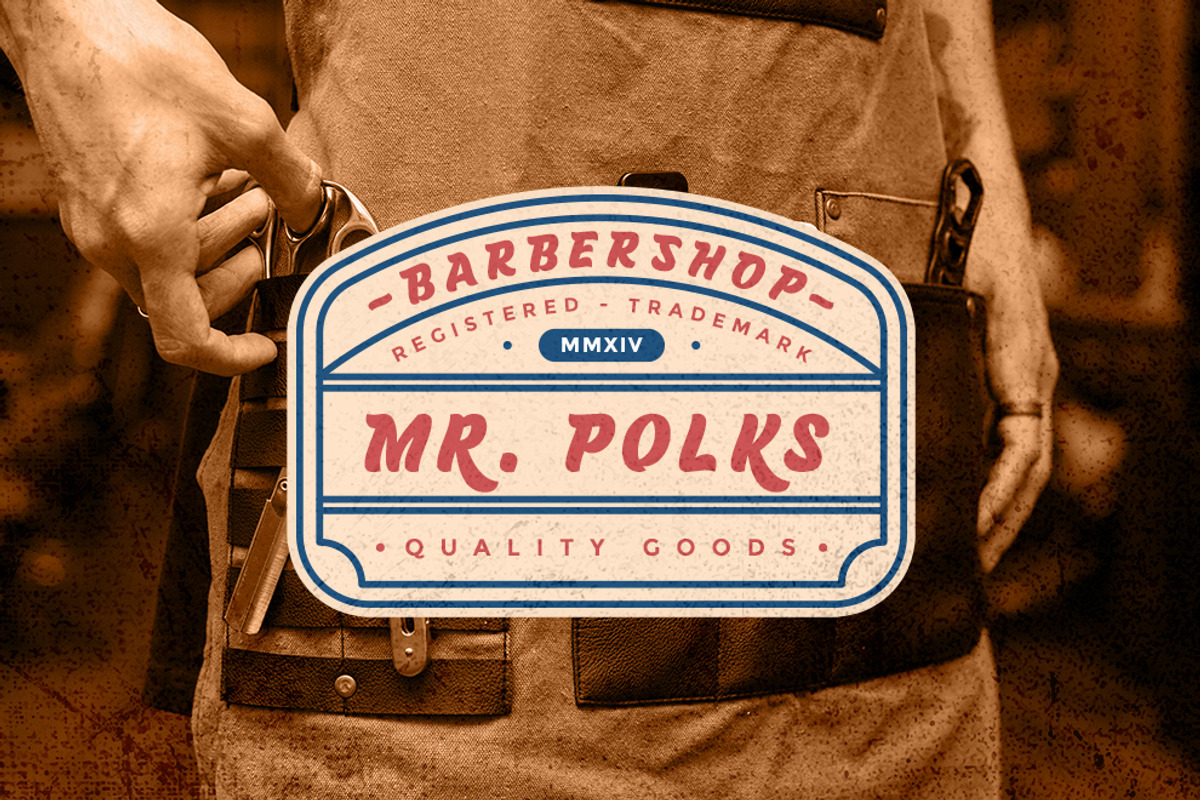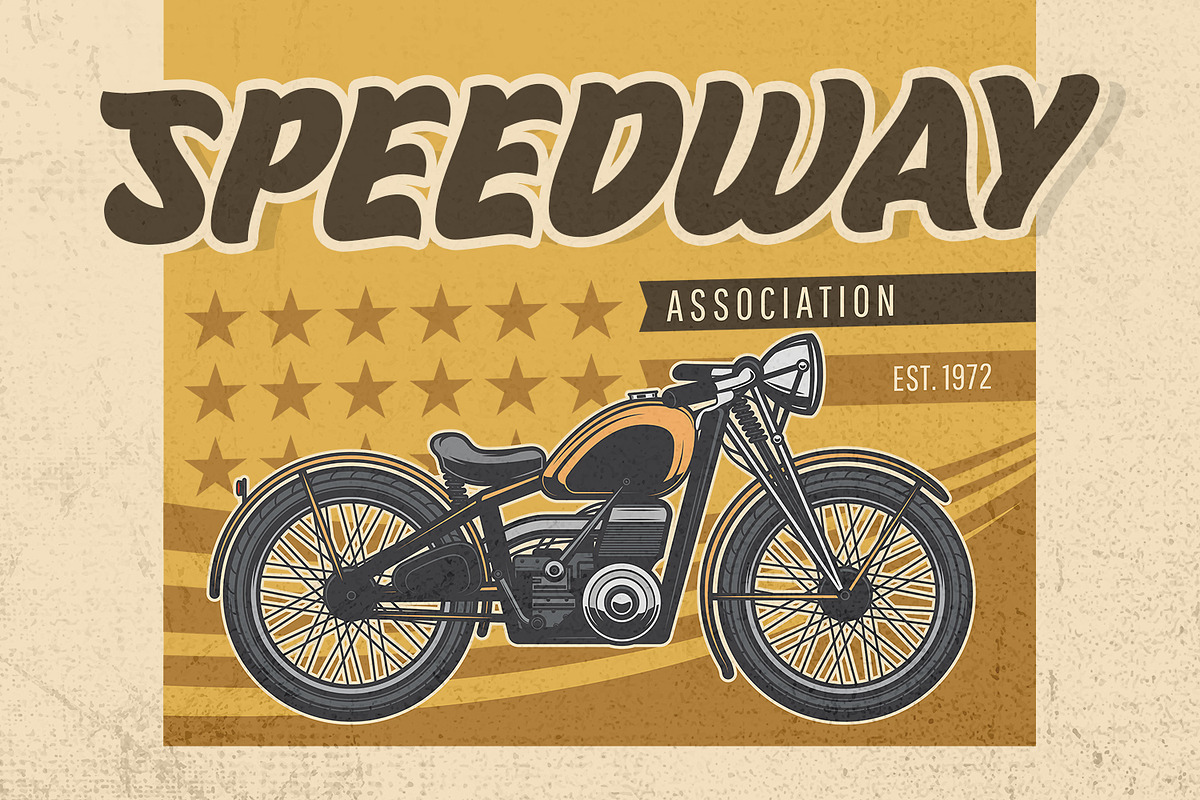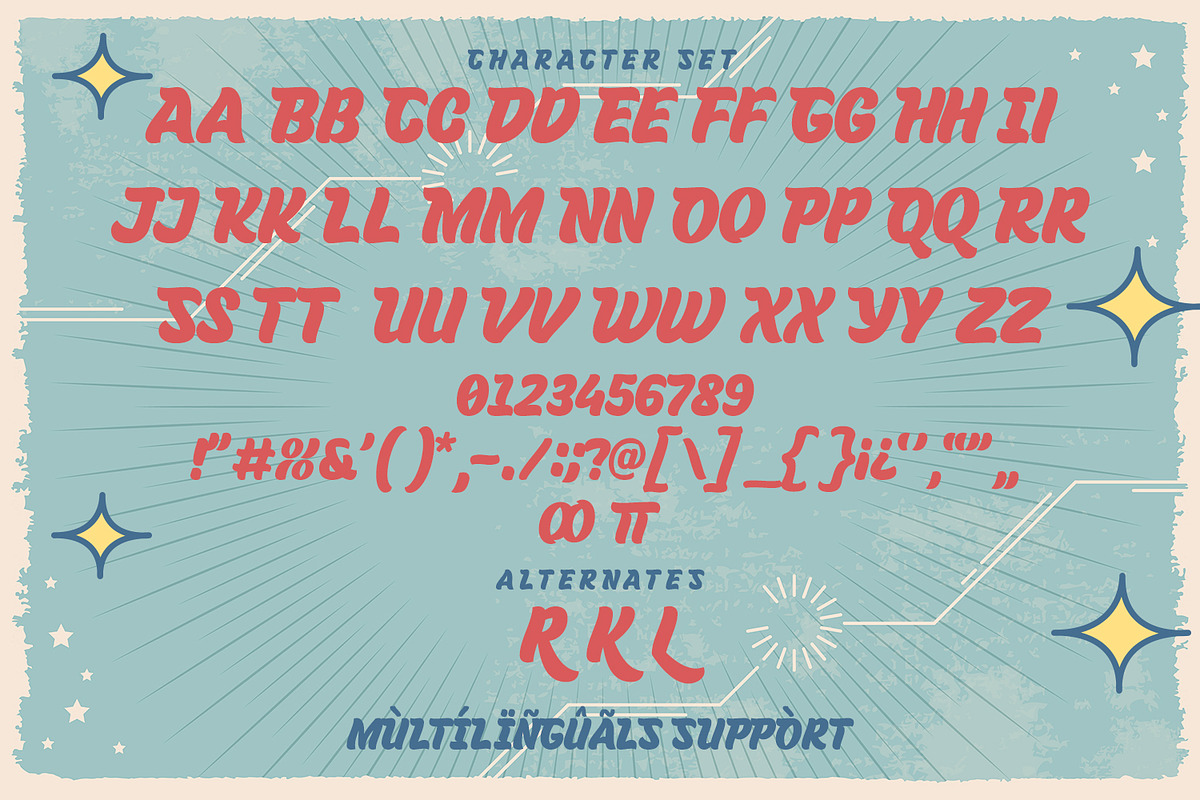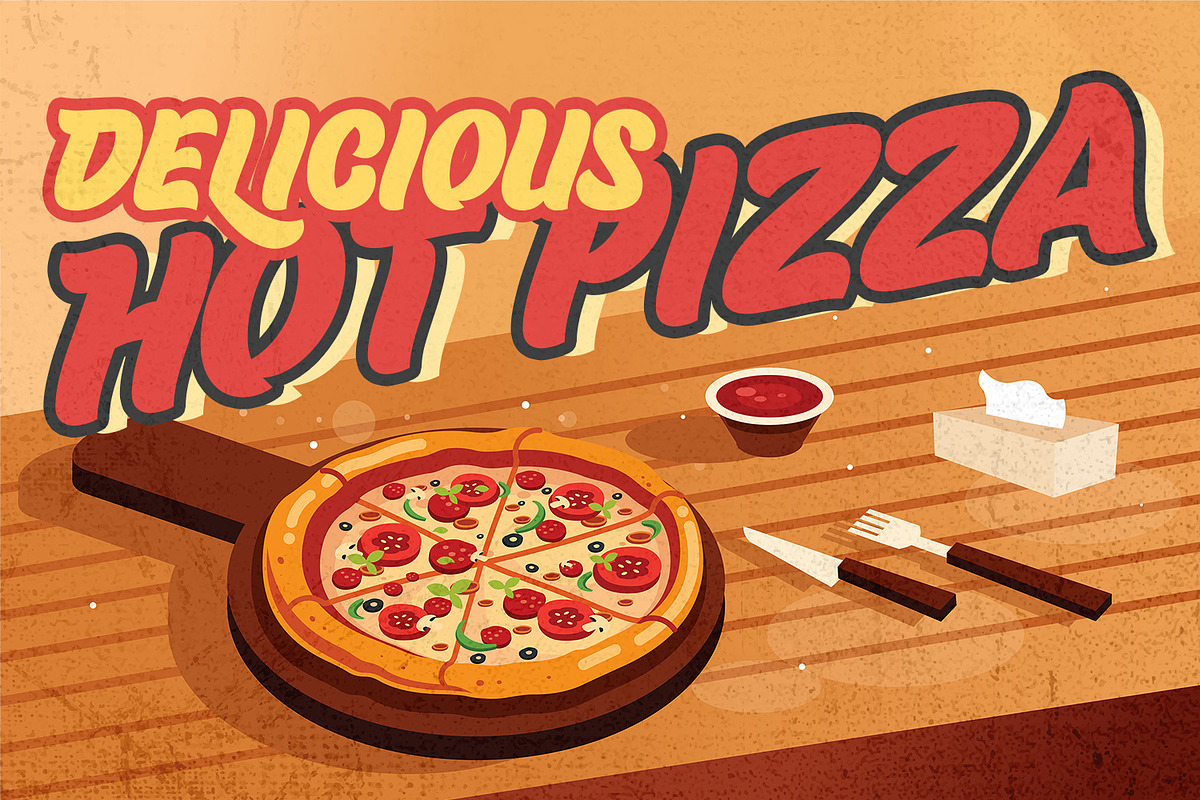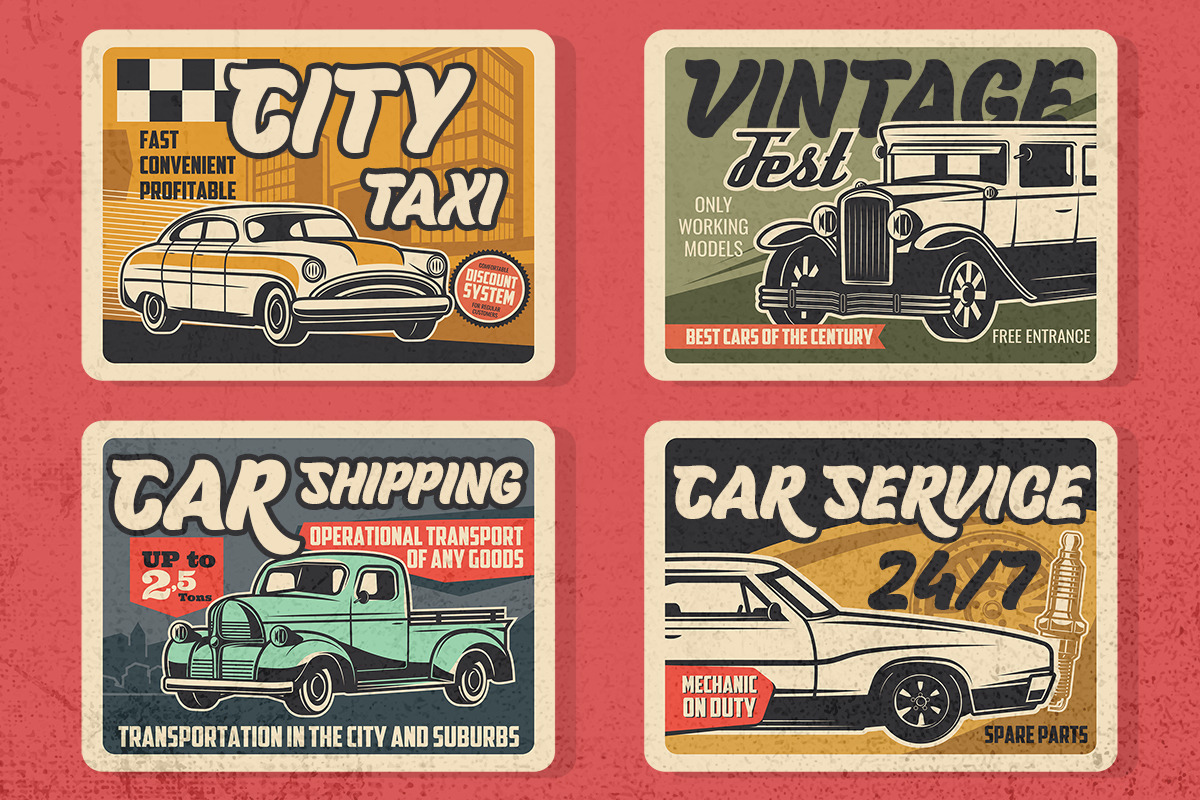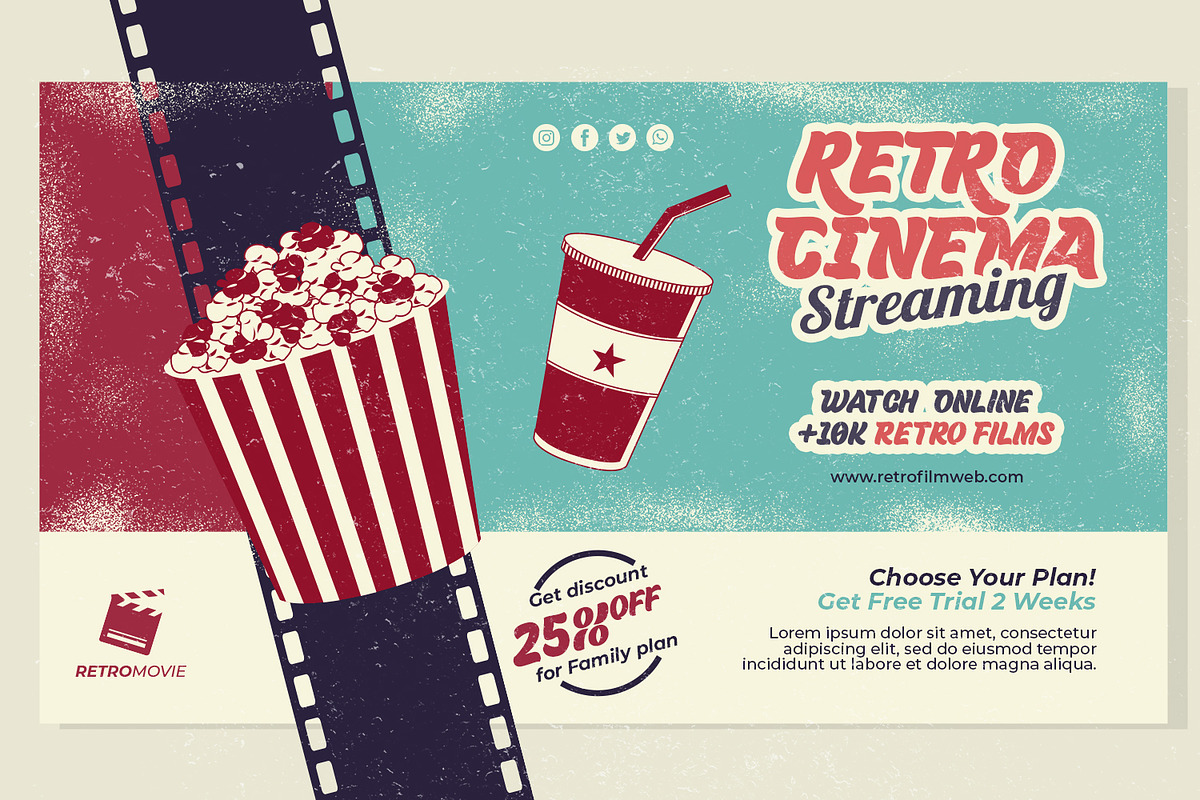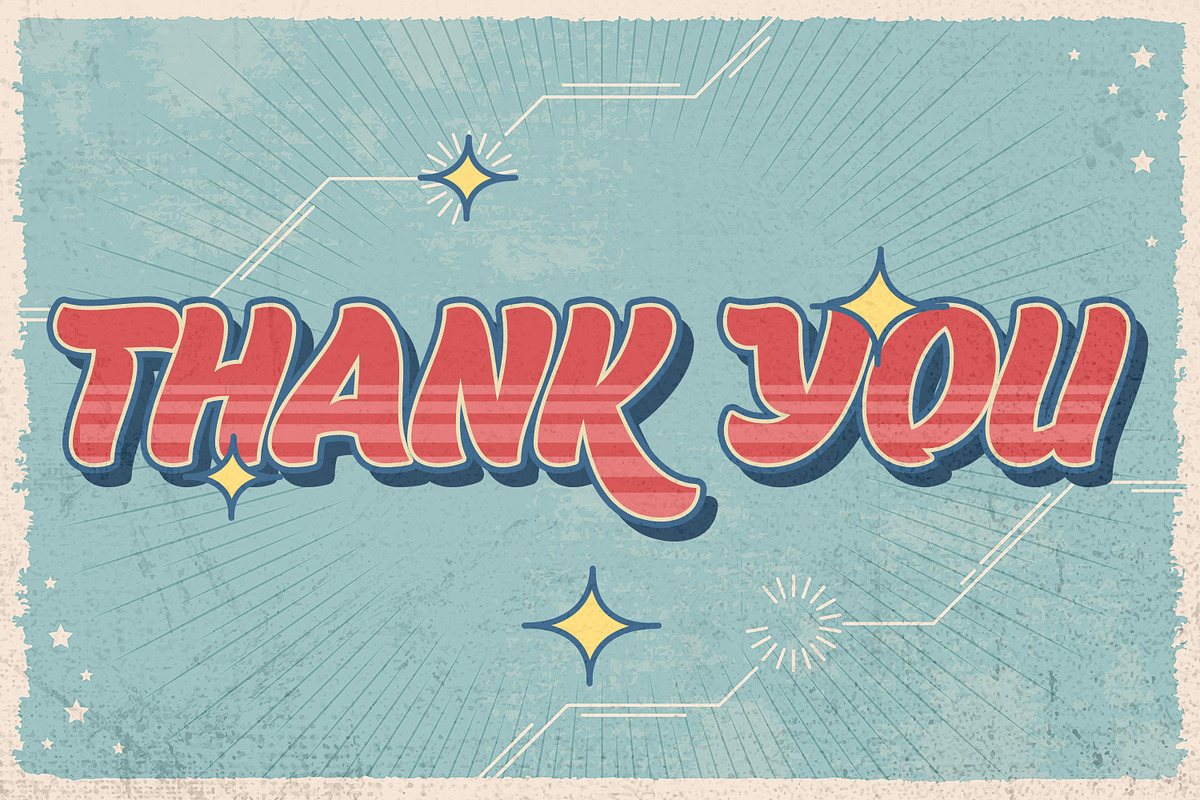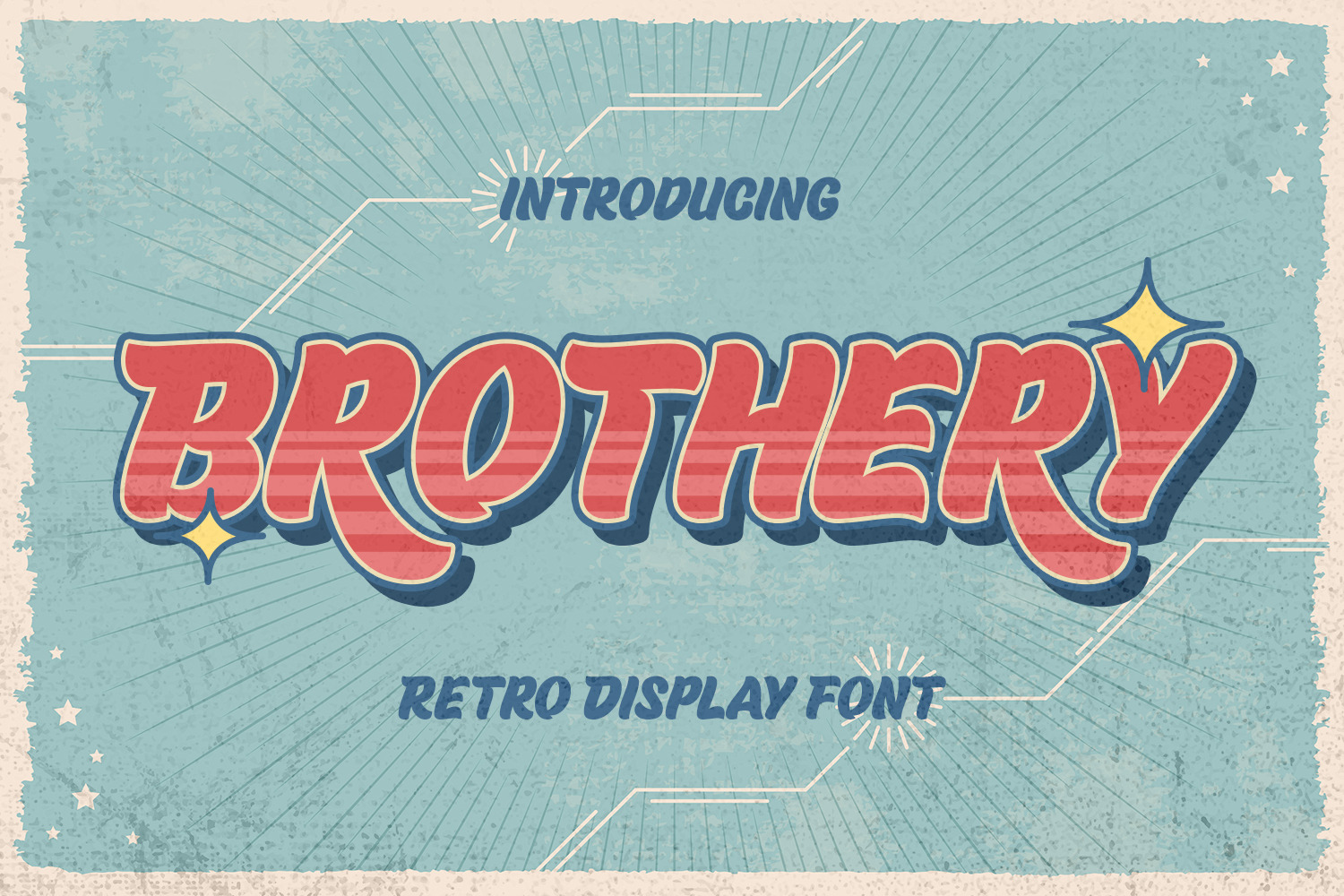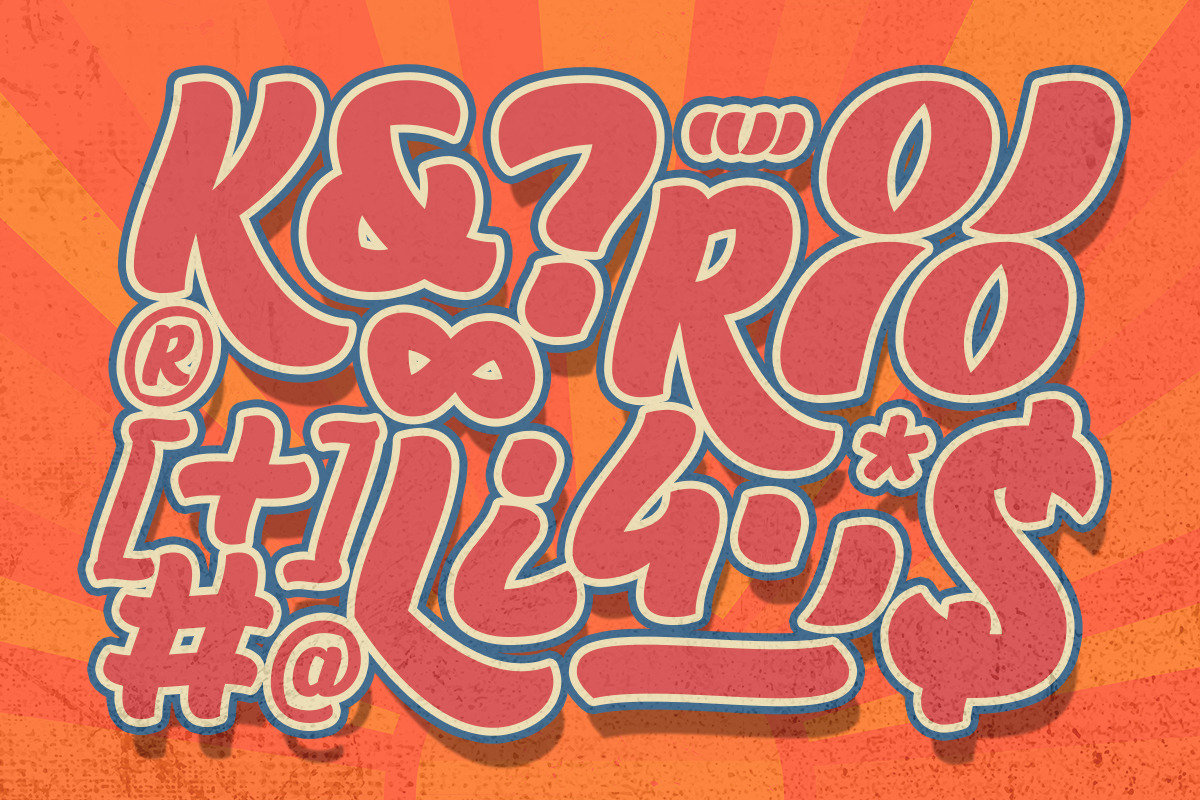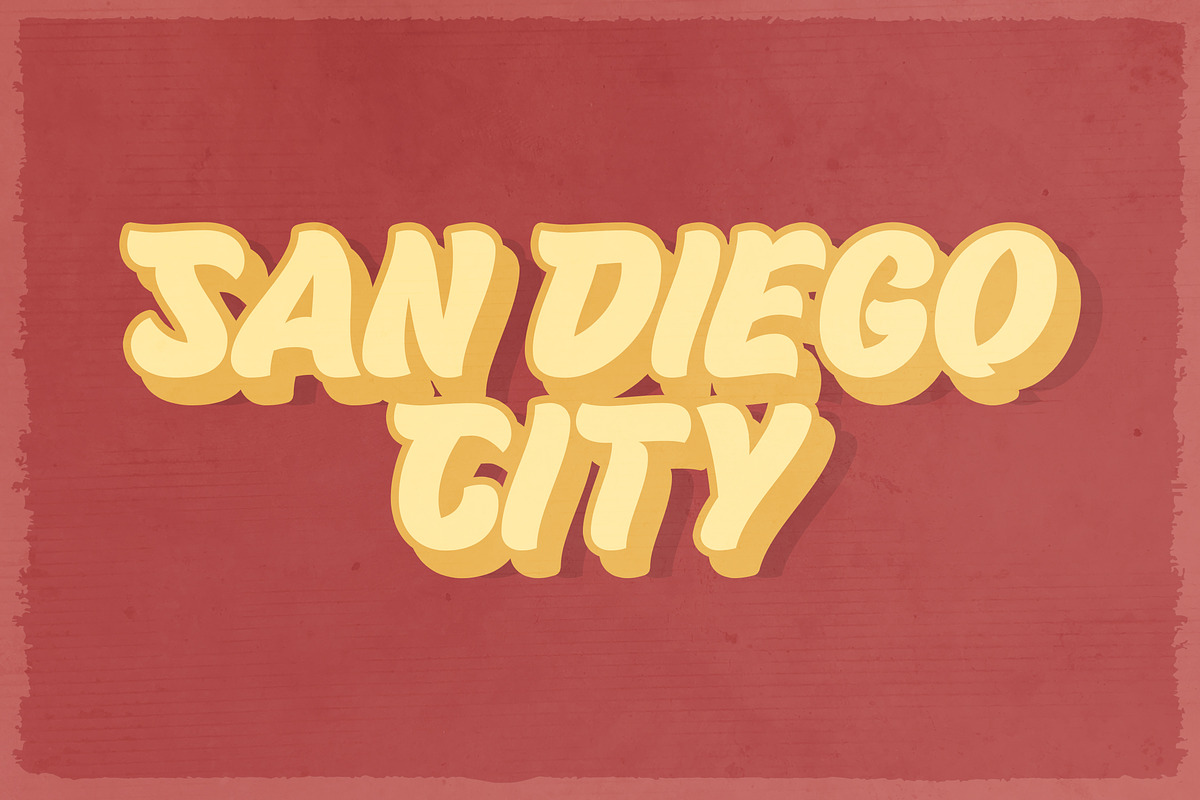
Brothery - Retro Display Font
Brothery - Fonts with a vintage touch reminiscent of past designs, making your design needs look unique and classic style. It is perfect for any design project as Invitation,logo, book cover, craft or any design purposes.